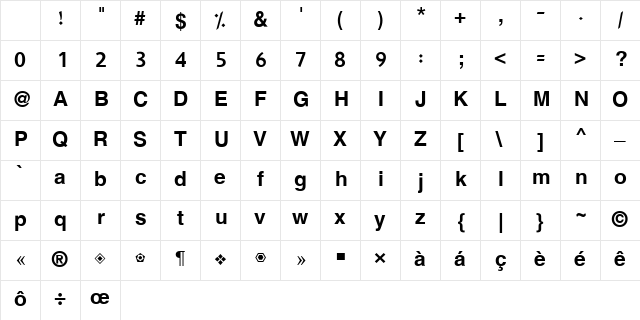
Complete Hacen Digital Arabia Regular glyph index. Displaying only characters natively supported by Hacen Digital Arabia Regular font.
Hacen Digital Arabia has a distinctly futuristic character, with geometric precision and clean angles that feel at home in technology, gaming, and sci-fi contexts.